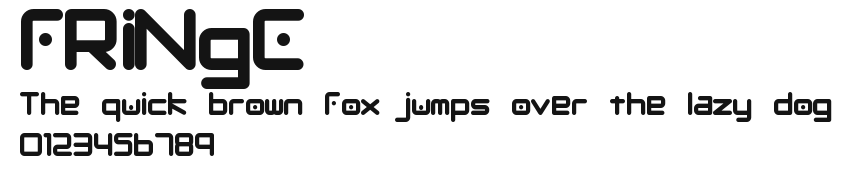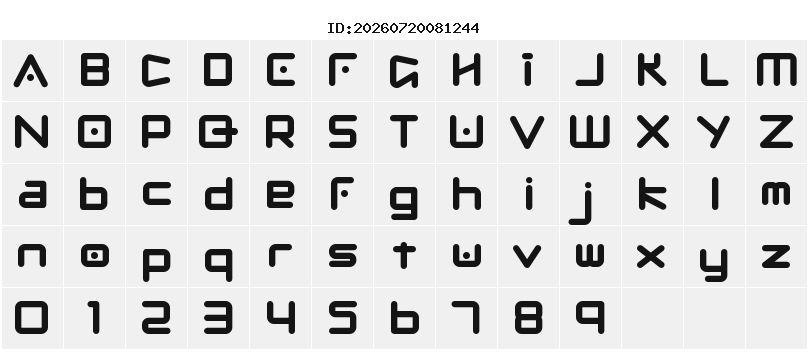
fRiNgE Preview
About fRiNgE.ttf
fRiNgE.ttf is a modern, elegant sans-serif font designed for ultimate readability and visual harmony. Perfect for branding, headlines, web design, and print materials.